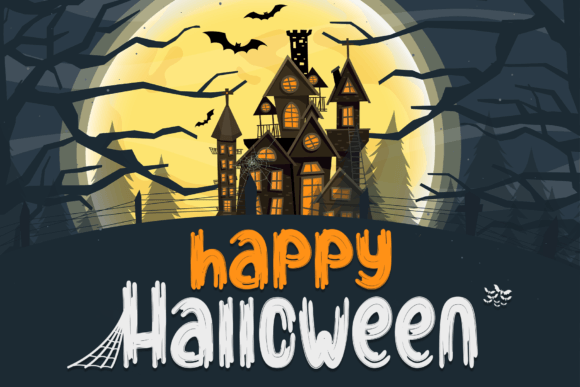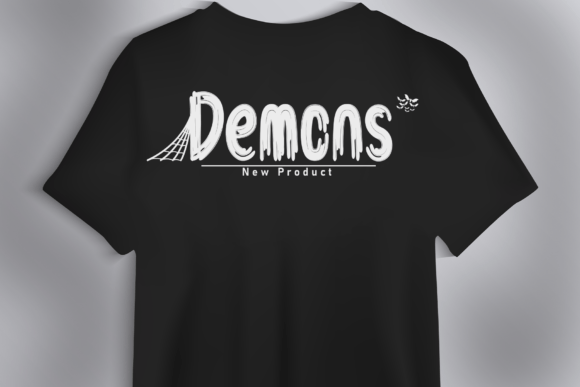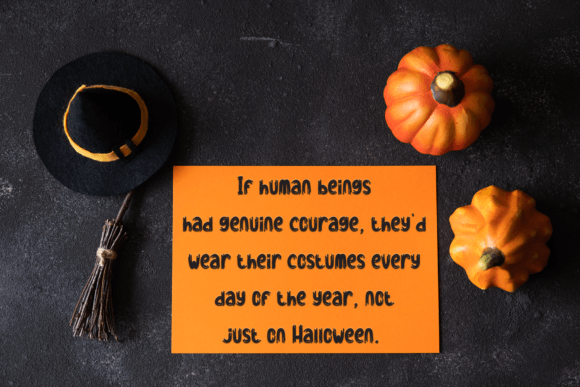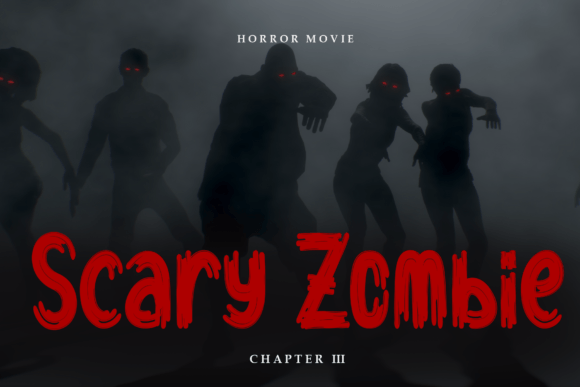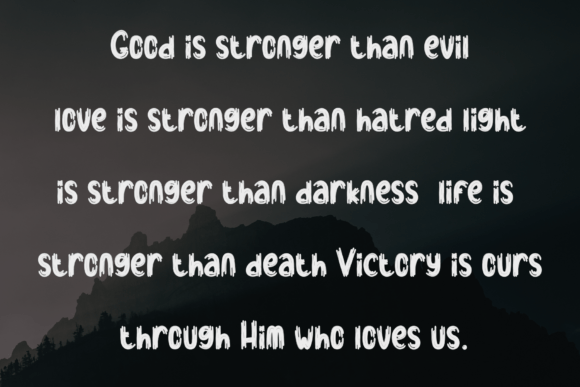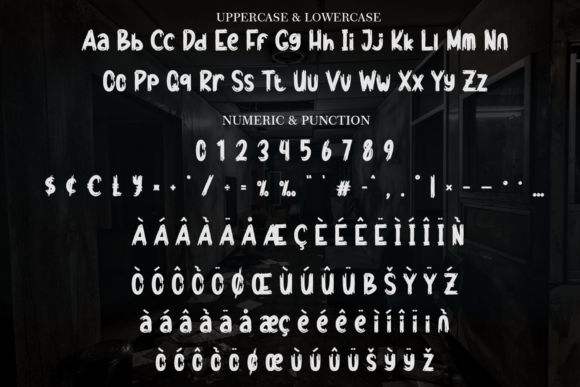
Unleash the Spine-Chilling Creativity with Haunted Hospital Font
Are you a designer, craftor, or a creative enthusiast looking for a unique and captivating font to elevate your projects? Look no further than the Haunted Hospital Font, an incredibly distinctive display font that is sure to become a true favorite in your collection. Masterfully designed to unleash your creative potential, Haunted Hospital Font has the power to bring each of your ideas to the highest level, adding a touch of eerie elegance to any design.
The Story Behind Haunted Hospital Font
The Haunted Hospital Font is not just any ordinary font; it’s a masterpiece crafted with precision and creativity. Its design draws inspiration from the mysterious and often spooky ambiance of abandoned hospitals, bringing to life a typography that is both haunting and beautiful. This font is perfect for projects that require a unique touch, such as Halloween-themed designs, horror movie posters, haunted house invitations, or any creative project that aims to evoke a sense of mystery and intrigue.
Key Features of Haunted Hospital Font
- Unique Display Font: Haunted Hospital Font stands out due to its unique and stylized letterforms that can instantly grab attention.
- Eerie yet Elegant: It strikes a perfect balance between being spooky and sophisticated, making it versatile for various creative projects.
- High Versatility: Whether you’re working on digital content, print materials, or craft projects, this font can be easily integrated and adapted.
How to Use Haunted Hospital Font in Your Projects
- Halloween-themed Designs: Create spooky invitations, party decorations, or social media posts that will surely stand out.
- Horror and Mystery Content: Enhance your horror movie reviews, mystery story covers, or any content that requires a creepy vibe.
- Craft Projects: Add a personal touch to your DIY crafts, such as handmade cards, scrapbooking, or woodworking projects.
- Digital Art and Illustrations: Use Haunted Hospital Font as a complement to your digital illustrations, adding a textual element that enhances the overall theme.
Tips for Maximizing Impact with Haunted Hospital Font
To truly leverage the potential of Haunted Hospital Font, consider the following tips:
- Combine with Images: Pair the font with eerie images or illustrations to amplify the effect.
- Play with Colors: Experiment with dark, vibrant colors to maintain the spooky theme or go for contrasting colors to make the text pop.
- Mix with Other Fonts: Don’t be afraid to combine Haunted Hospital Font with other fonts for a unique and layered look.
Haunted Hospital Font is more than just a font; it’s a creative tool that can transform your designs, adding an element of intrigue and charm. Its unique and captivating style makes it perfect for a wide range of projects, from spooky Halloween designs to sophisticated digital art. By incorporating Haunted Hospital Font into your creative arsenal, you’re not just choosing a font; you’re embracing a design statement that’s sure to leave a lasting impression. So, unleash your creativity, and let Haunted Hospital Font guide you into a world of eerie elegance and limitless design possibilities.